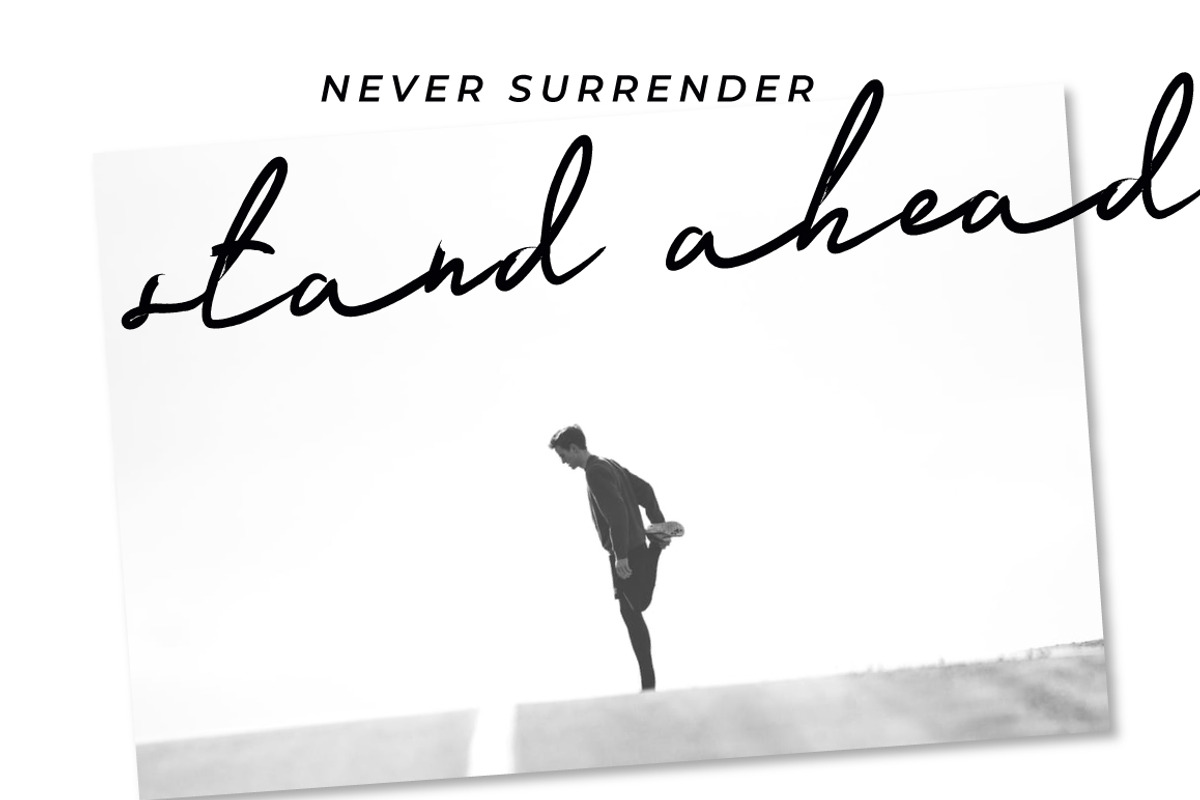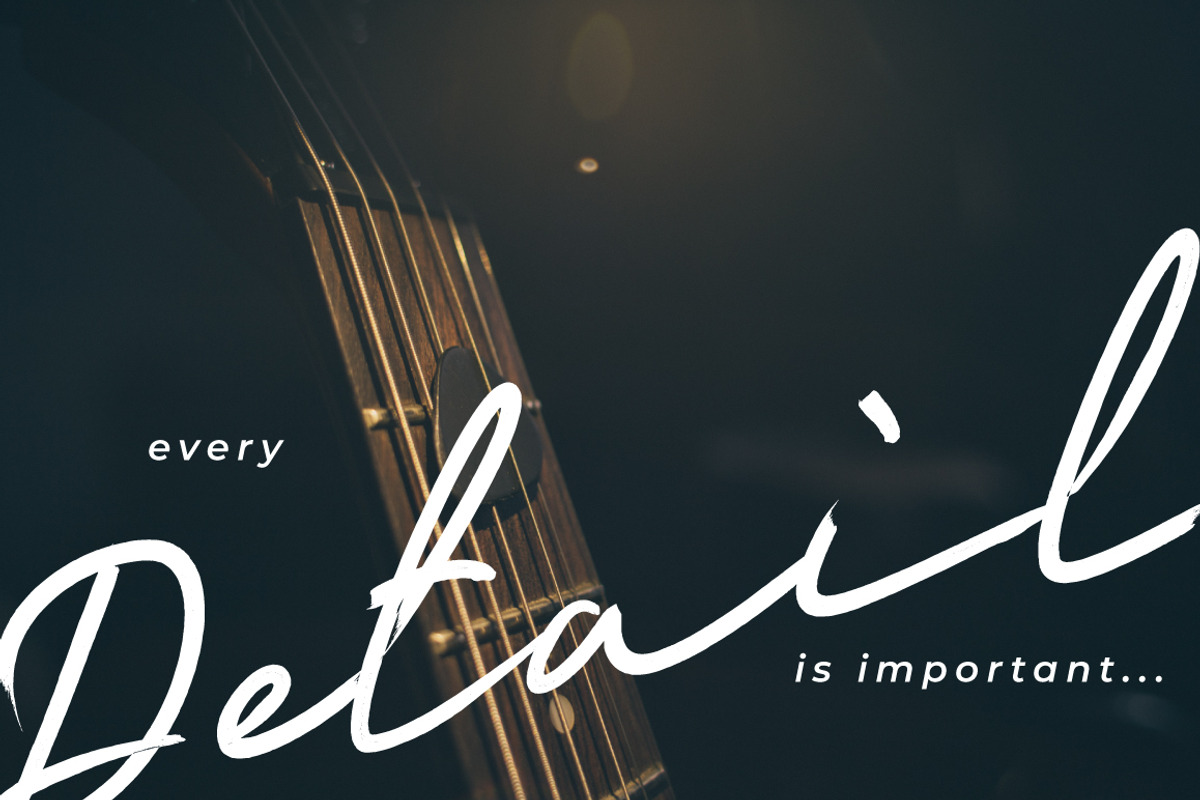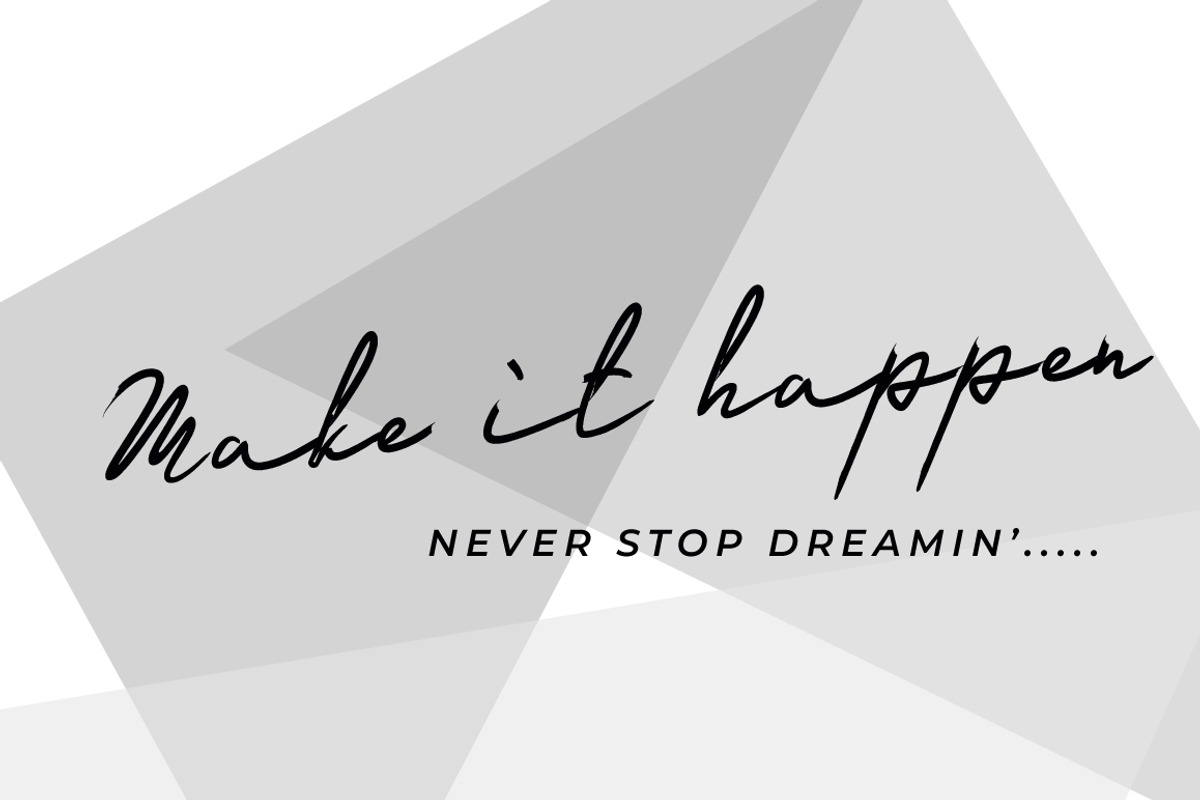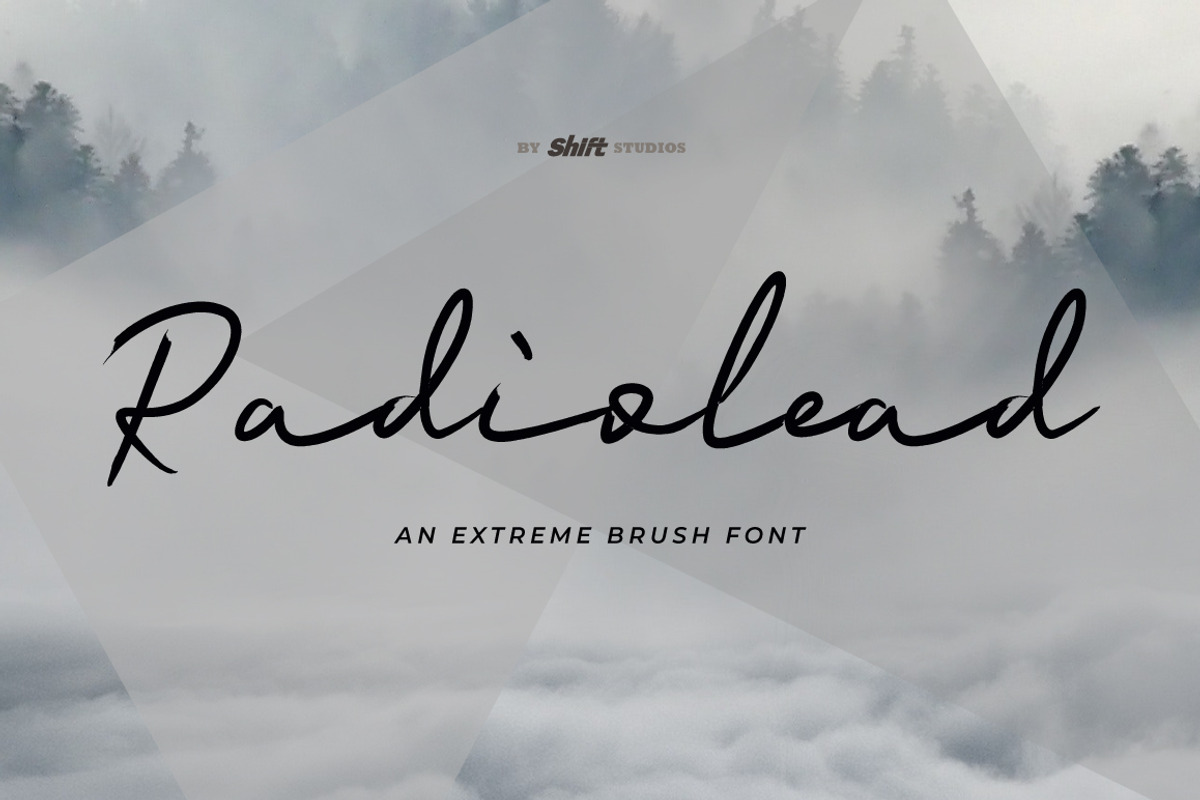
Radiolead Font
Radiolead font is an extreme brush script style and handwriting font. This script font specifically established for beautiful and elegant handwriting looks and perfect also for your special branding.
Perfect for displays, headers, invitations, blogs, poster and so much more, Mountain Peak will become a lively essential in your font collection!